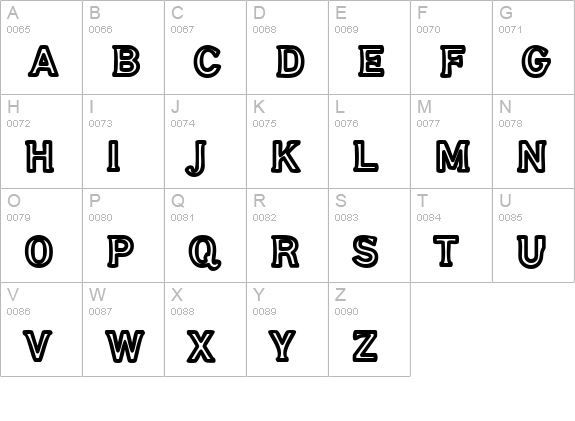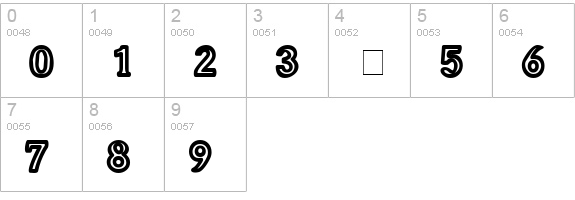
Gubbröra Font Details
Gubbröra font is a modern and stylish typeface that exudes sophistication and elegance. Its sleek lines and unique design make it perfect for a wide range of design projects, from branding to packaging and beyond. This versatile font is sure to make your creations stand out and leave a lasting impression. The best part? Gubbröra font is completely free to download at FontsMarket.com. Take advantage of this amazing opportunity to add this stunning font to your collection and elevate your designs to the next level. Don't miss out on the chance to enhance your projects with the beauty and creativity of Gubbröra font. Download it today and start creating something truly exceptional.